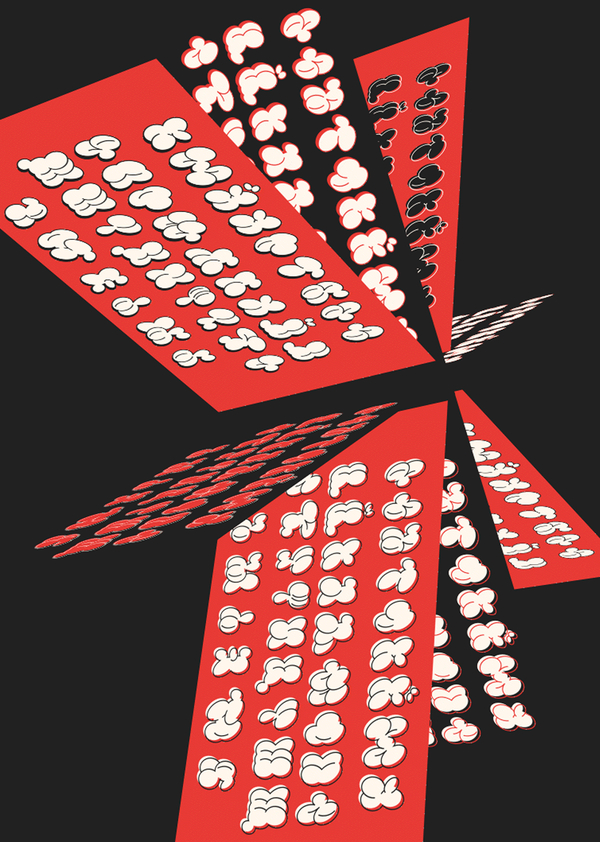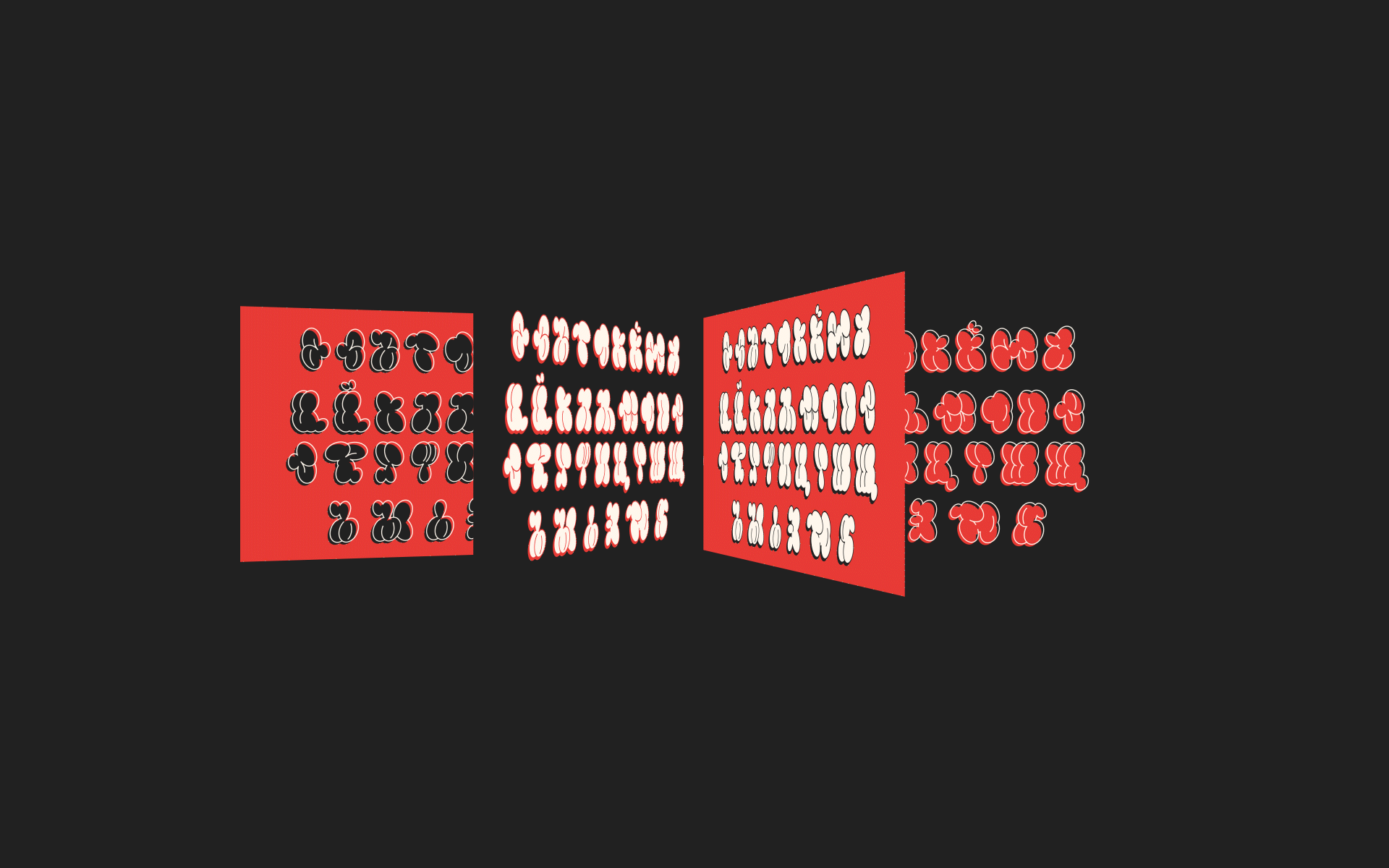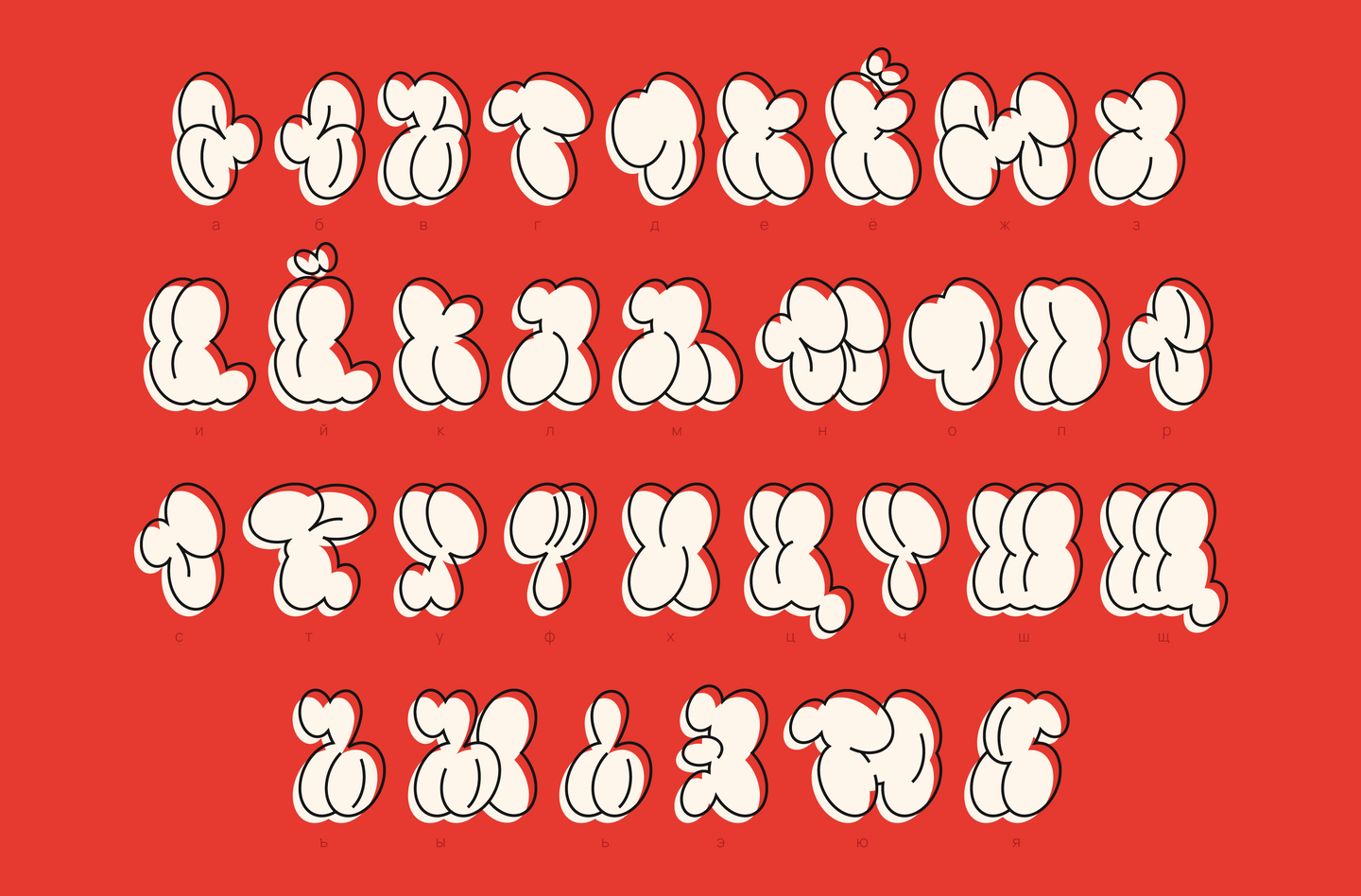
The development of a cyrillic graffiti shrift is a project that combines street aesthetics, riot spirit and urban rhythm with printing discipline. This font comes from the interface between the ideology of street subcultures, their visual world and the way they express themselves, and the cultural code of cyrillic writing.
the drawing of shadows
a list with a displaced filler
Classical drawing
List with displaced inverted filler
An end-outline and filler silhouette